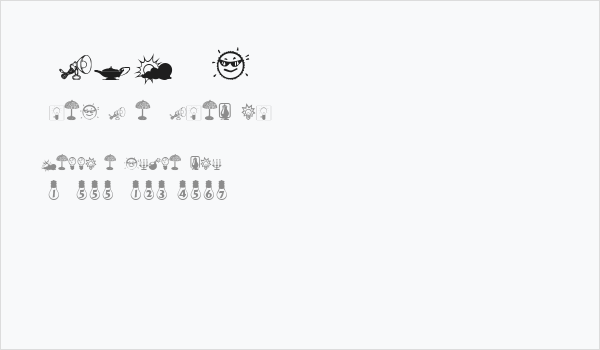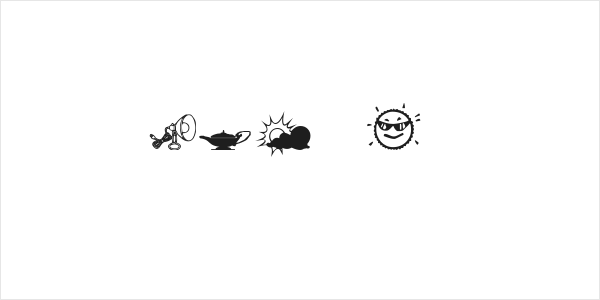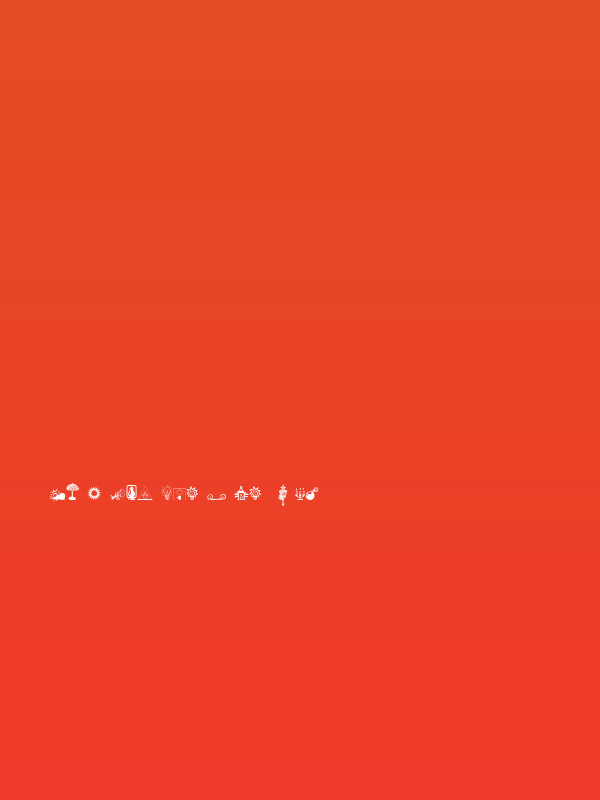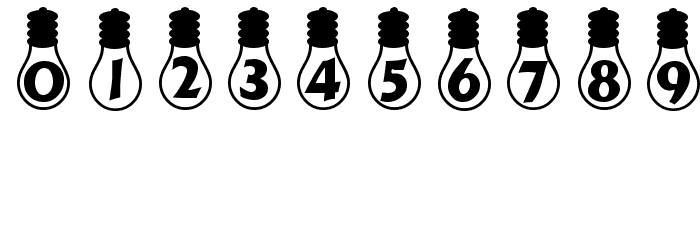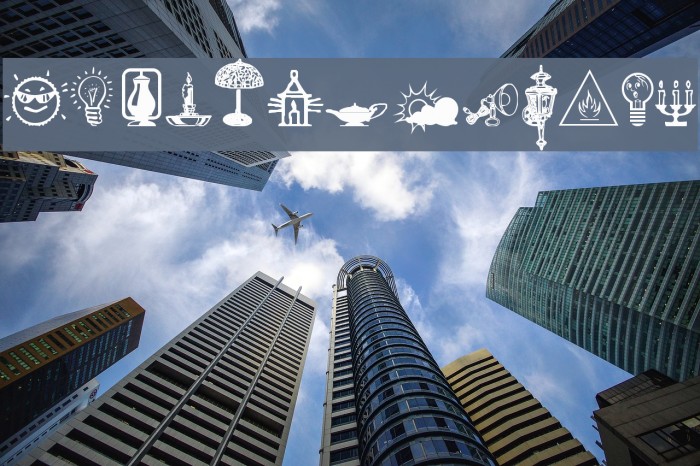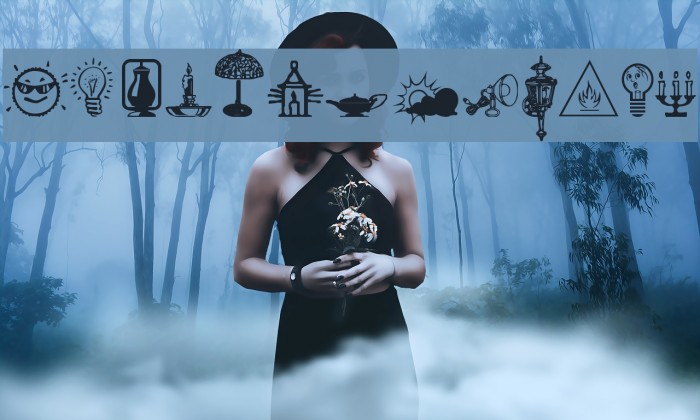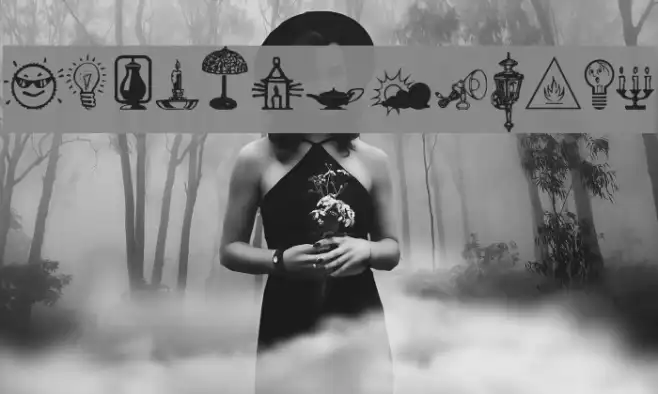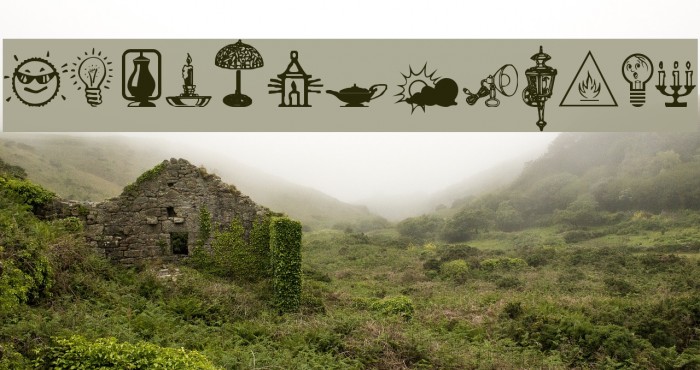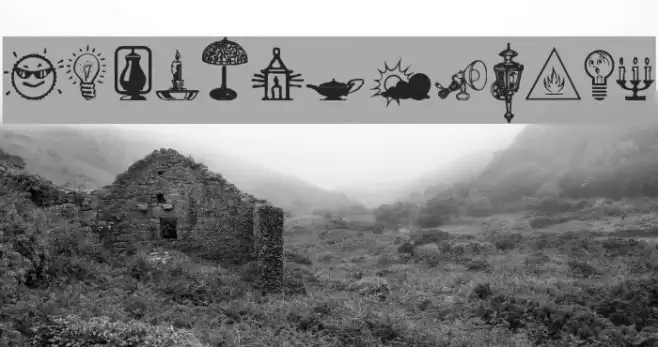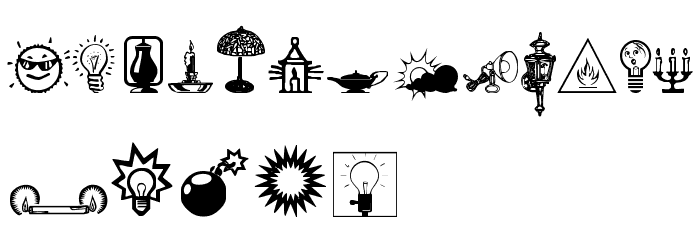
LightBats Font
LightBats Description
This is a decorative font that features a collection of whimsical and thematic icons related to light and illumination. Each character is represented by a unique symbol, such as light bulbs, lamps, and other light-related imagery. The numbers are creatively enclosed within light bulb shapes, adding a playful and thematic touch. The icons are bold and clear, making them suitable for decorative purposes where a light or illumination theme is desired. The style is consistent across all characters, providing a cohesive look.
| Use Case | Logos, Posters, Invitations |
| Proposed Projects | Ideal for creative projects such as event invitations, themed posters, educational materials about electricity, or any design requiring a playful light-themed aesthetic. |